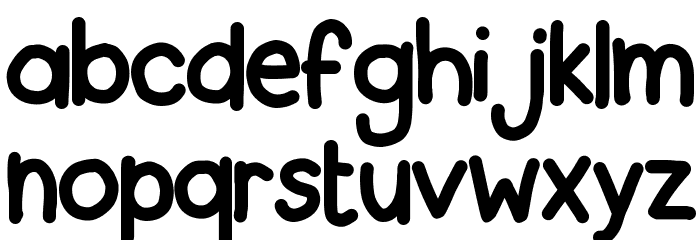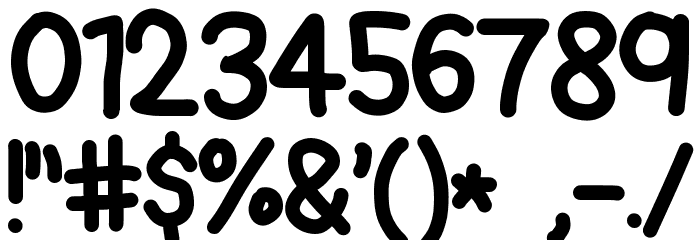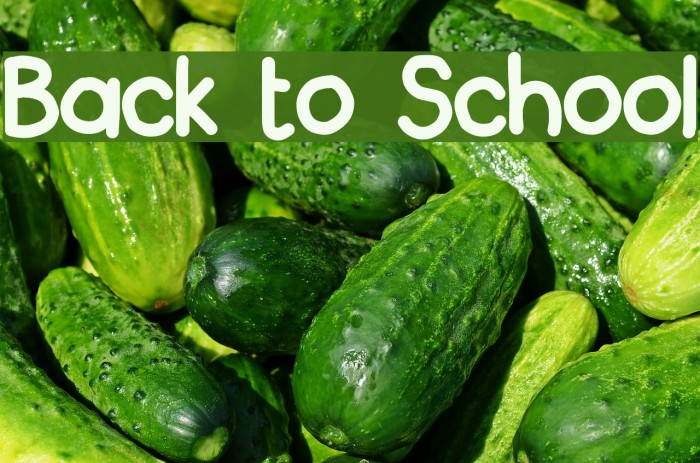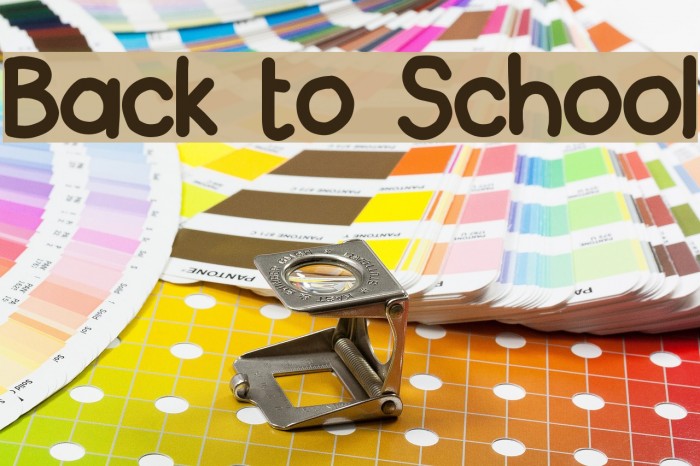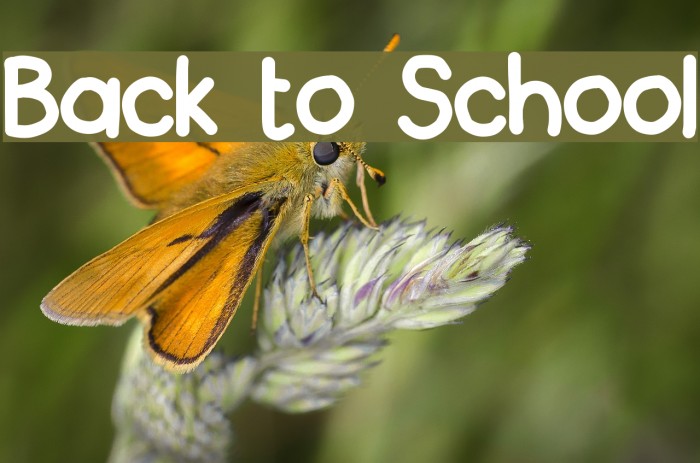
Back to School Font
This playful and rounded font exudes a friendly and approachable vibe, making it ideal for informal and fun projects. The characters are bold and slightly condensed, with a consistent stroke width that gives it a uniform appearance. The rounded edges and smooth curves contribute to its casual and youthful style, reminiscent of handwriting or chalkboard lettering. The font maintains a balanced and harmonious look, with each letter well-proportioned and easy to read. Its whimsical nature makes it perfect for children's materials, educational content, or any design that requires a touch of lightheartedness.
A playful, rounded font with a friendly and approachable style.
- Weight: Medium
- Proposed Projects: Ideal for children's books, educational materials, posters, and playful branding.
- Category: Handwritten
- Width: Condensed
- Overall Style: Casual
- Use Case: Headlines, Posters, Children's materials